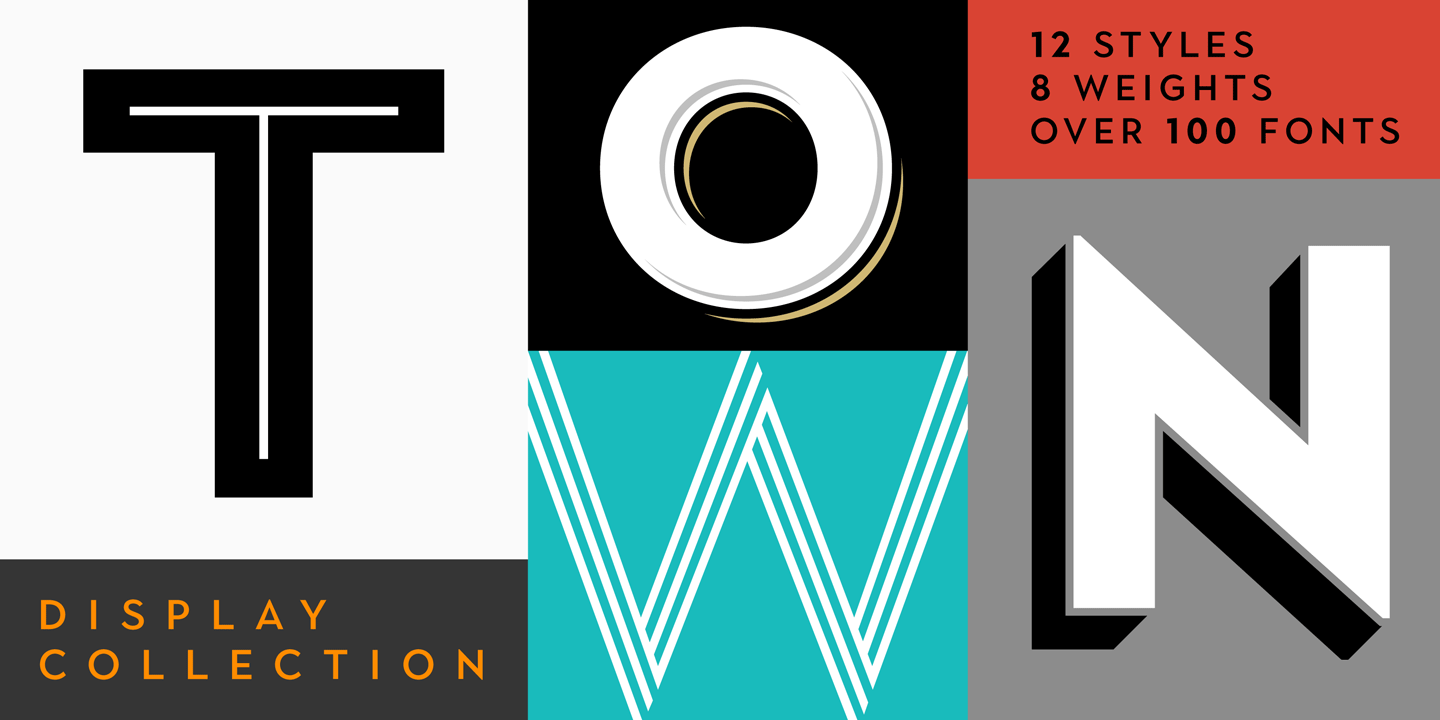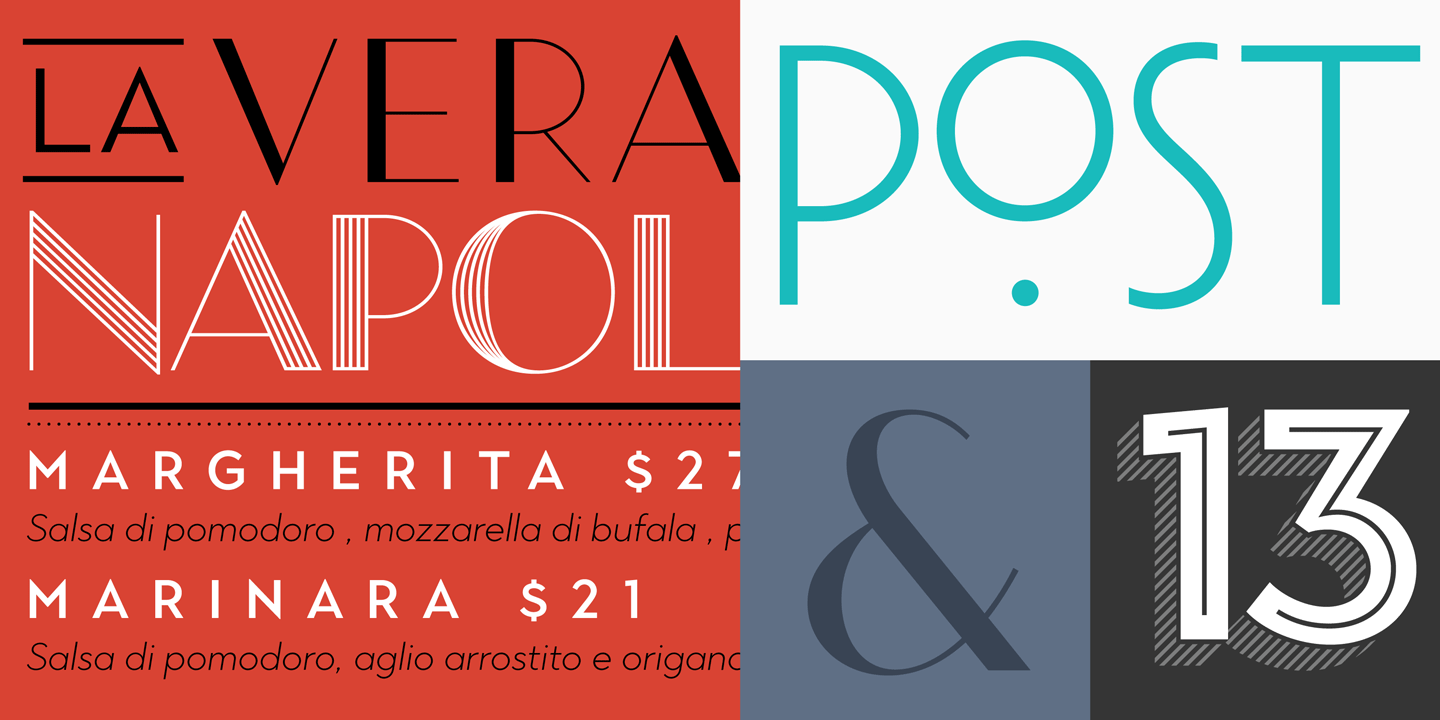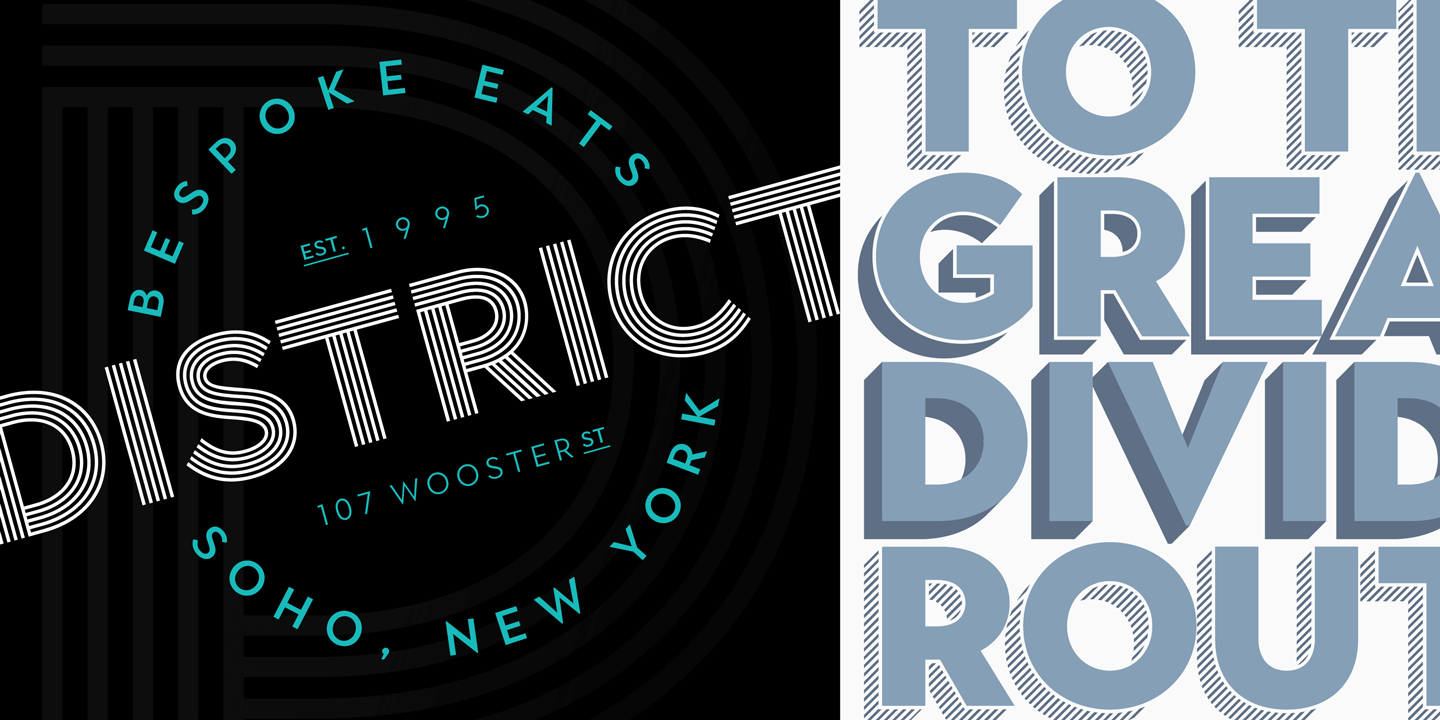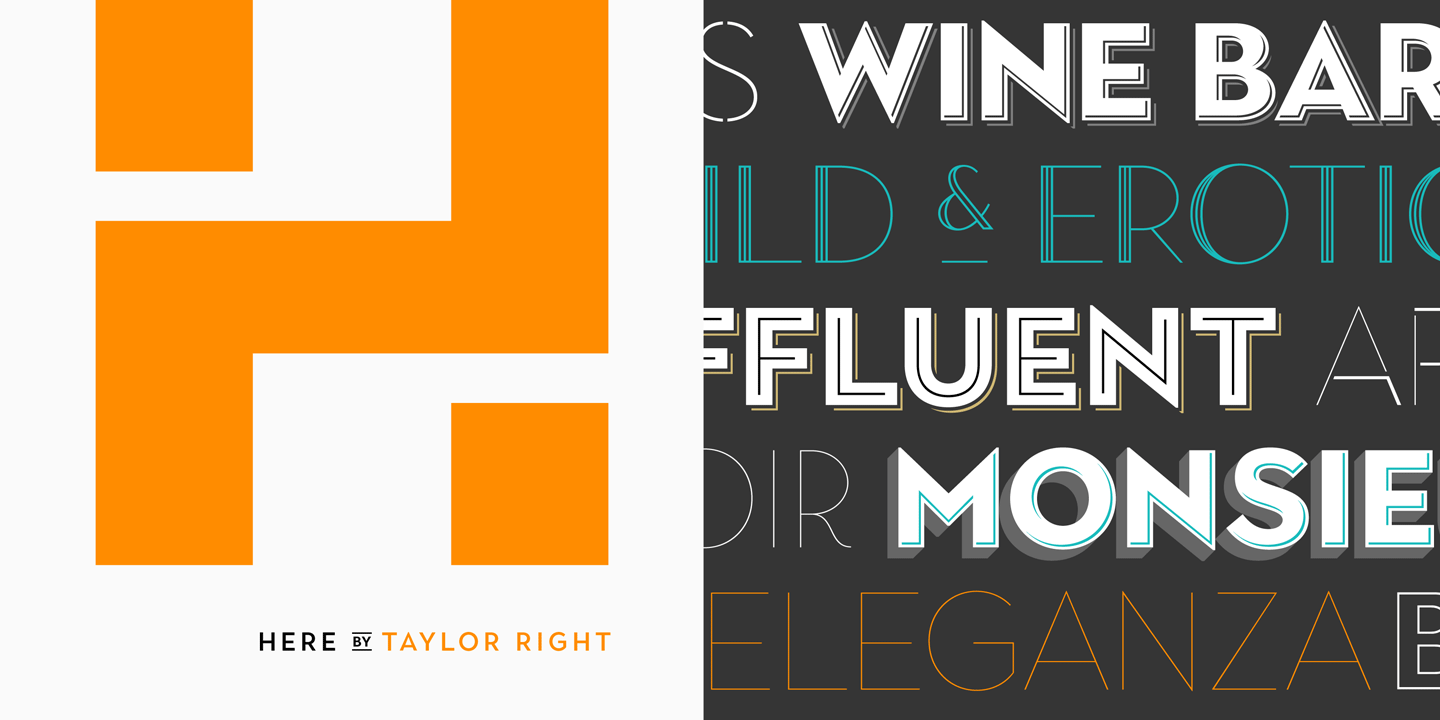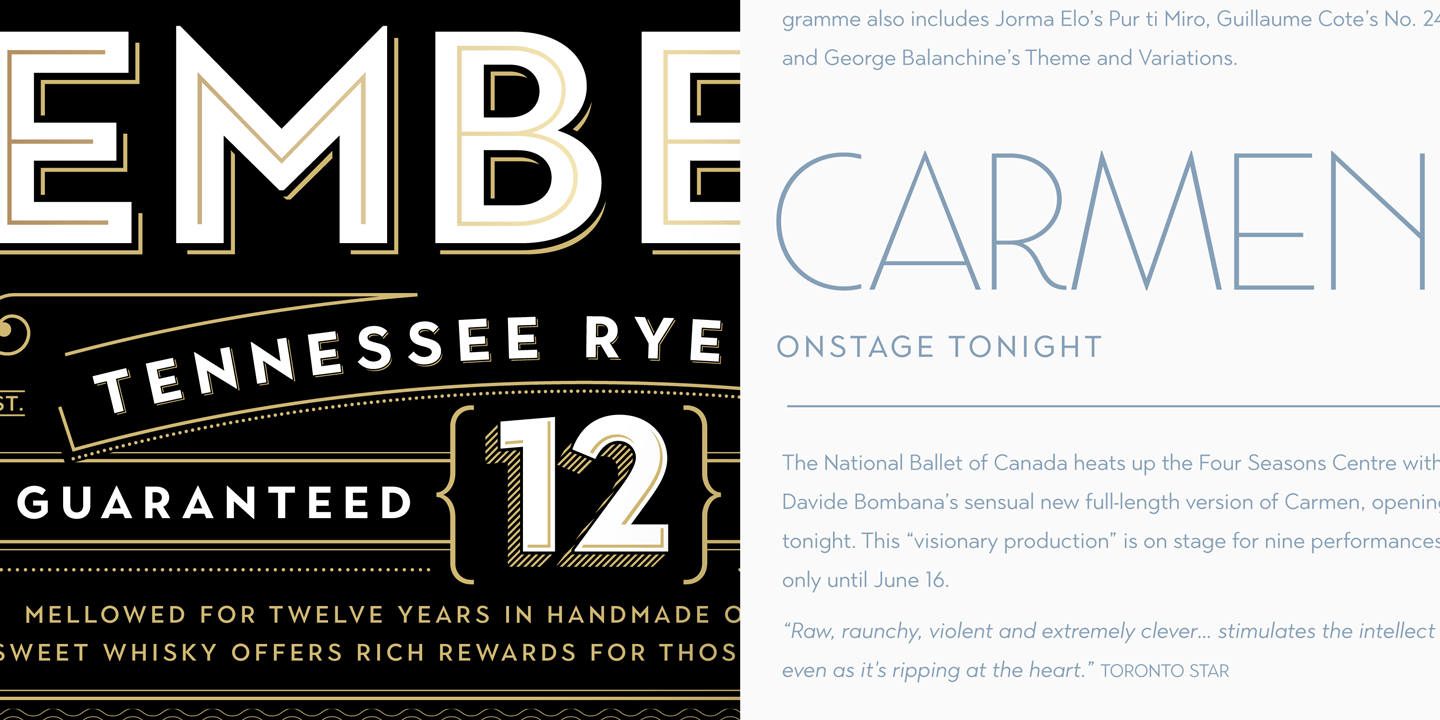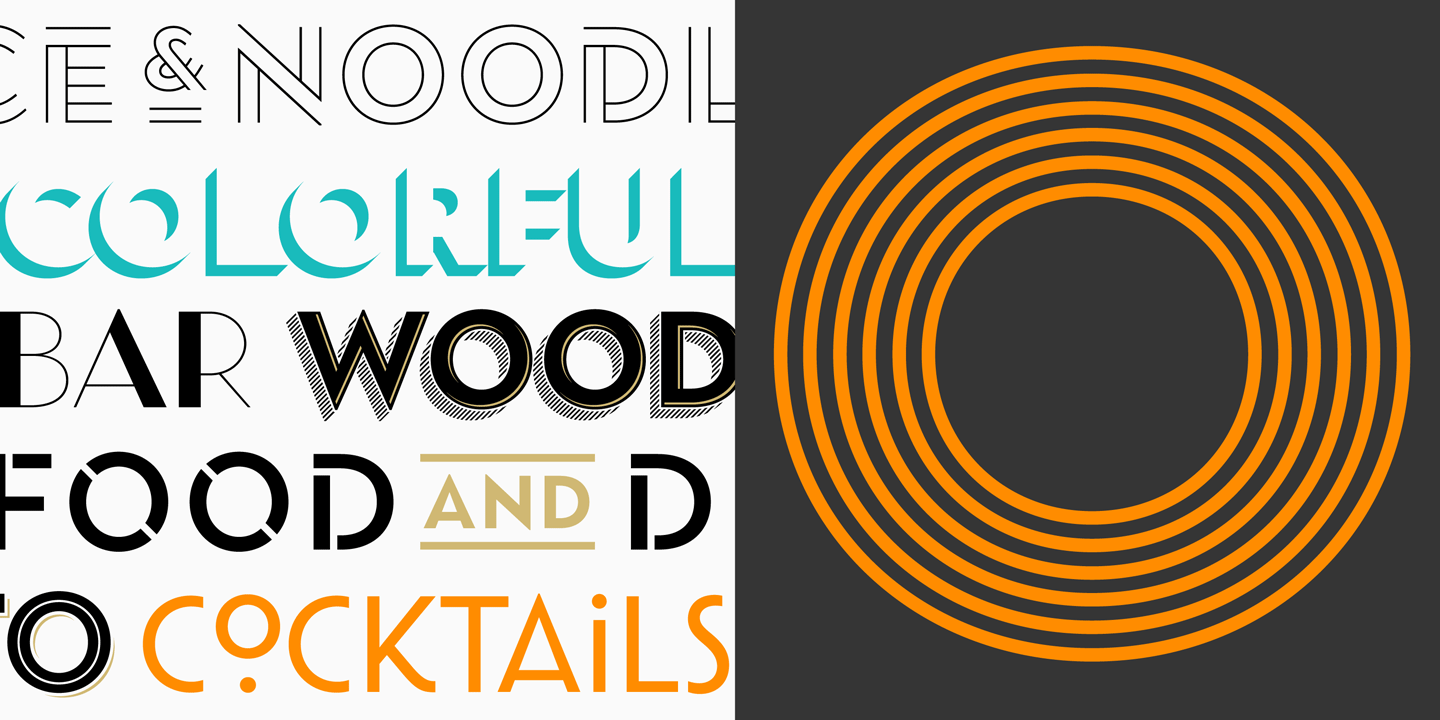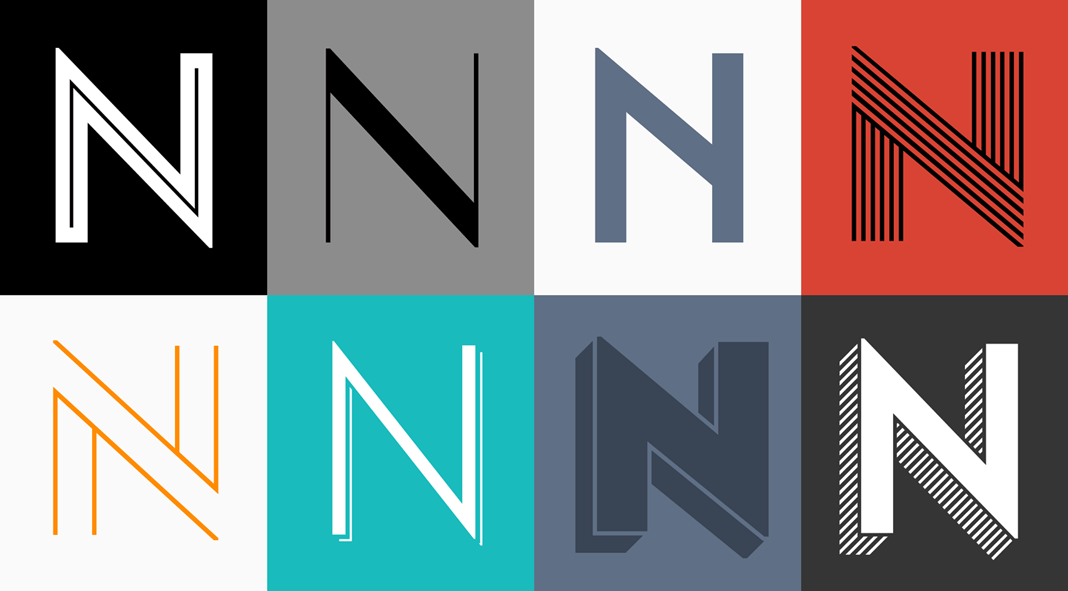
Town, a font collection inspired by Art Deco and contemporary lettering.
Designed and published by Jason Vandenberg, Town is a huge font collection consisting of 124 typefaces. In this versatile collection, type designer Jason Vandenberg has combined the classic feel of Art Deco styles with several features of contemporary lettering. The huge set comprises 8 base weights as well as 9 decorative styles in numerous weights. The different fonts can be combined in countless ways. Furthermore, some of the fonts can be layered together to create a 3 dimensional look or add a subtle shadow to your lettering. The possibilities seem endless! Please read more below or click on the following link to get the full collection as super saver introductory offer (only for a limited time).
Town, a decorative display font collection for multipurpose.
Town’s different Art Deco inspired styles have been designed for display use to create eye-catching brand identities, signage, labels, restaurant menus, striking magazine layouts, engaging websites, and much more. Despite the different styles, all fonts are based on similar foundations, which makes it easy to combine them in several ways. In addition, the collection comes with 2 sets of accent fonts and a set of text weights plush matching Italic versions. For additional information on all features, just follow the link below.